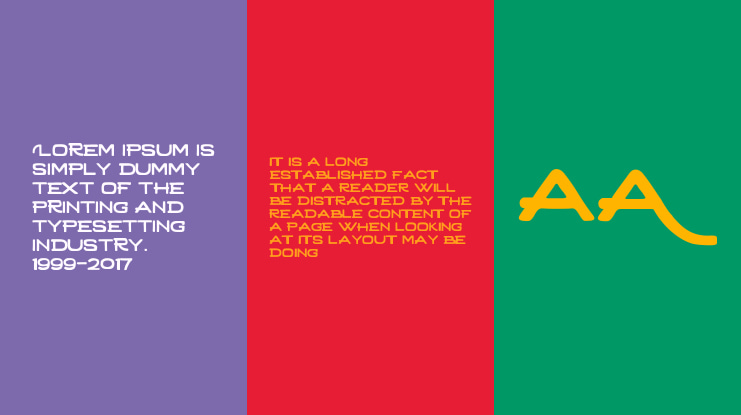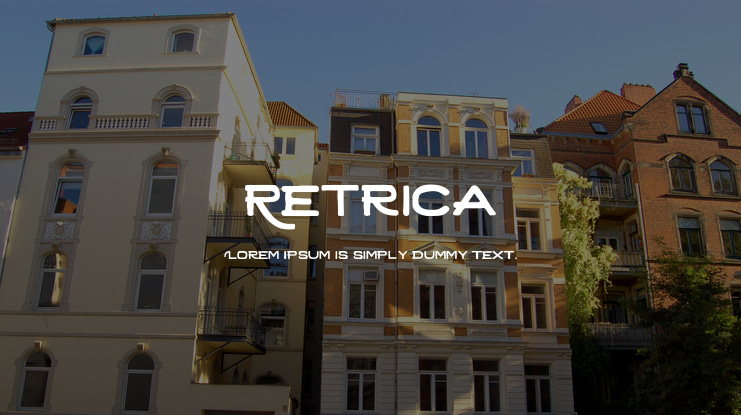
Retrica Font
Retrica, a new handmade vintage typeface, simple, elegant and more handrawn taste. All features like alternate character, multilingual support and webfont available on full version. Drop me an message or email for upgrading license Email